The histories of your favorite typefaces, from Futura to Gill Sans to Times New Roman, have been conveniently collected in one elegant iOS app, called Typendium, released this week. It includes short essays and illustrations explaining everything from why Palatino is the world’s most pirated typeface (an imitation has been given to every Microsoft Office user in the world) to why Gill Sans is considered controversial (Eric Gill himself was something of a monster in his personal life).
British game maker and sound designer William Robinson and artist Robyn Nevison started work on Typendium in 2013 as a way to learn how to make an app. “I had recently taken an interest in typography thanks to the great Gary Hustwit documentary ‘Helvetica,’ so I thought what could be better than learning about two things at once?” Robinson writes in an email. “Most of the literature on the subject is about the practical uses of type and it can be quite tough reading. I wanted to offer someone intrigued by the subject an interesting overview of some of the world’s best typefaces.”
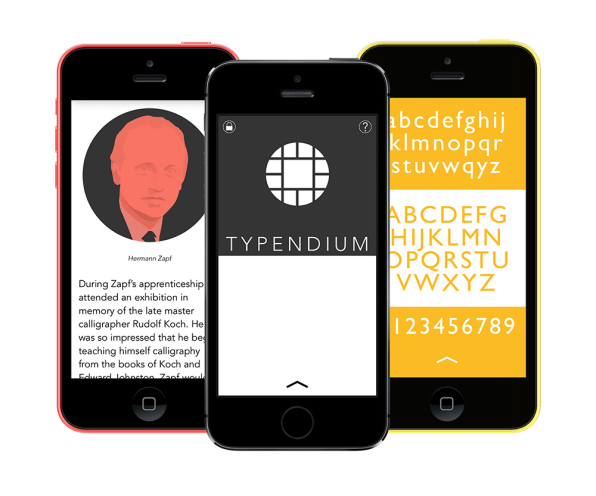
Nearly a year and a half later, the app is complete, with histories of Baskerville and Futura available for free. Robinson found Baskerville’s story one of the most inspiring: John Baskerville, the typeface’s creator, was “a complete amateur,” he says. “John Baskerville just had a love of print and lettering and let nothing stop his need for perfectionism. In doing so he revolutionized the printing process, printed some of the most astounding books of his day, and became despised by the professional printers of England.” Typendium offers the histories of Times New Roman, Gill Sans, and Palatino for 99 cents. That fee will also unlock new typeface histories as they’re added.
Typendium is portable, and discreet–so next time you’re at a pretentious design party and need to show off your typography knowledge, you can just read up on Futura real quick while pretending to text someone.